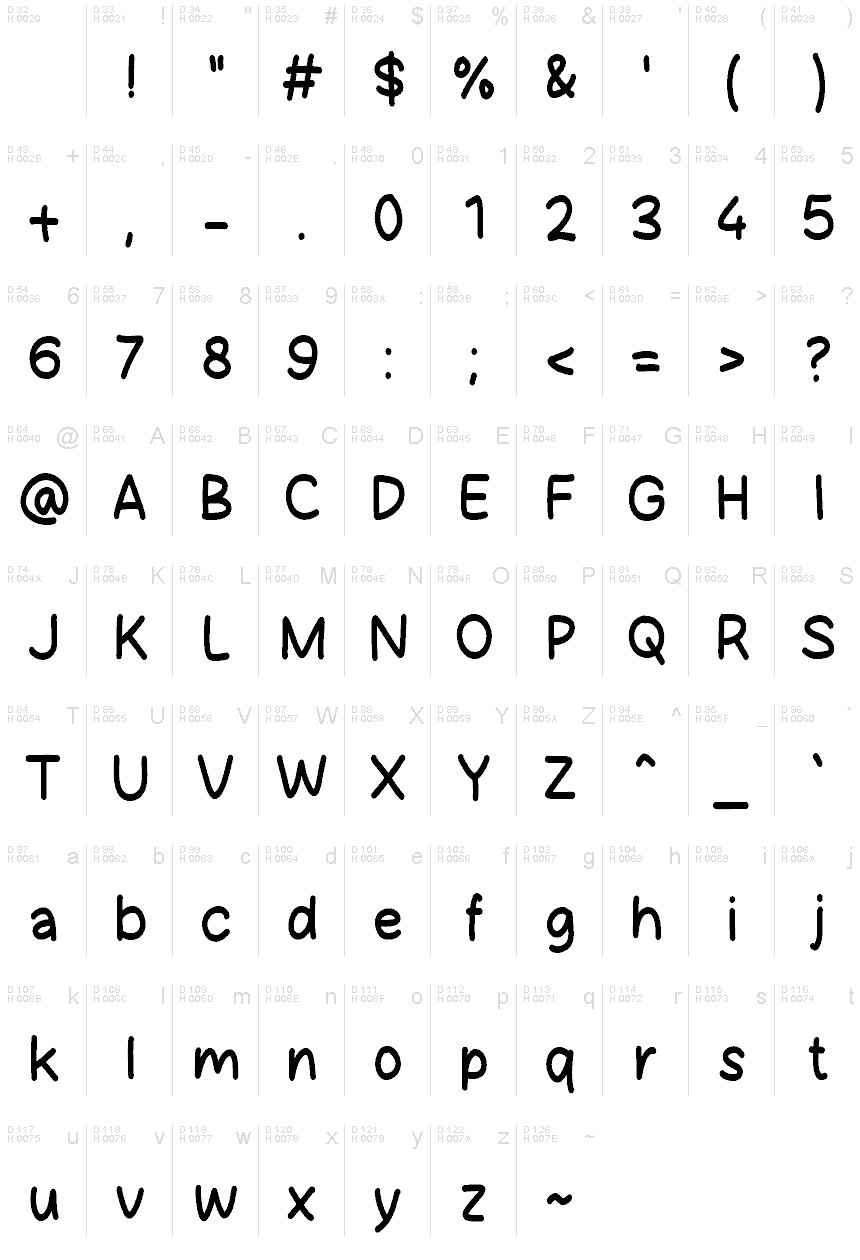
Harvest Story
Harvest Story font by MJType is a casual, friendly handwritten font. Its approachable and organic nature evokes a hand-drawn feel, capturing the essence of natural beauty and simplicity. The playful typography is playful with a calming balance between strokes, making it feel complete overall.
Easily establish an inviting tone with Harvest Story; use postcards, ads, vlog intros/outros, or branding! It’s perfect for cards and letters as its free spirit truly lets you express yourself authentically in relaxed projects.